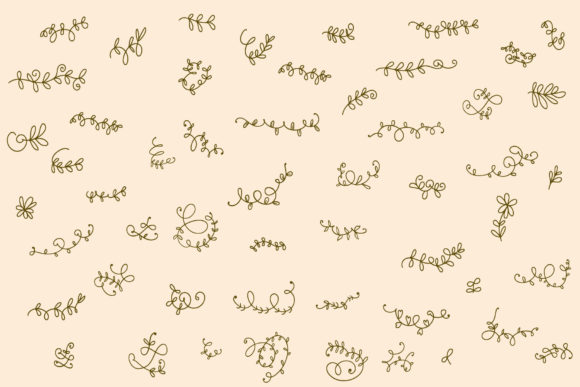
The Art of Handrawn Ornaments: Elevating Your Creative Projects
Do you remember that moment when you stumbled upon the perfect font that made your design project come alive? For many of us, it’s a moment that sparks joy and fuels our creativity. Whether you’re a seasoned designer or a crafty enthusiast, finding the right font can be a game-changer. That’s exactly what happened when I discovered the Handrawn Ornaments Font – a delightful dingbats font that adds a touch of whimsy to any project.
Handrawn Ornaments is a versatile font that’s perfect for crafting, digital designing, presentations, and even greeting cards making. Its dainty design elements make it an ideal choice for designers looking to add a personal touch to their work. With the Handrawn Ornaments Font, you can create unique and eye-catching designs that stand out from the crowd.
Key Features of Handrawn Ornaments Font
- Size: The font family includes ornaments in various sizes, ranging from small to large, making it suitable for various design applications.
- Resolution: The ornaments are designed at 300 DPI, ensuring high-quality output when used in printing or digital media.
- Unique Characteristics: The font features a hand-drawn, whimsical design with intricate details and textures, giving it a unique and artistic feel.
- Character Set: The font includes a wide range of ornaments, such as stars, hearts, flowers, and more, making it suitable for various design projects.
Review of Handrawn Ornaments Font
Overall, I think the Handrawn Ornaments Font is a lovely addition to any designer’s toolkit. The ✨ whimsical feel of the font is perfect for creating a playful and festive atmosphere, making it ideal for holiday projects or other seasonal designs.
One of the things I love about this font is its ✨ versatility. The ornate details and flourishes add a touch of elegance, while the more simplified shapes make it easy to read and use in a variety of contexts. It’s also great for creating a sense of texture and depth in your designs.
While the Handrawn Ornaments Font is a great choice for many projects, there are a few limitations to be aware of:
- ⚠️ Limited character set: The font is not a full Unicode font, so you may encounter issues with non-English characters or special symbols.
- ⚠️ Not suitable for body text: Due to its ornate design, the font is best used for headlines or titles, rather than large blocks of body text.
- ⚠️ May require adjustments for some systems: Some users have reported issues with the font not rendering correctly on certain systems or devices.
Overall, I think the Handrawn Ornaments Font is a great choice for designers looking to add a touch of whimsy and festivity to their projects. While it may have some limitations, the benefits far outweigh the drawbacks.
The Handrawn Ornaments Font is commonly used in:
1. Holiday cards and invitations.
2. Gift tags and wrapping paper.
3. Party decorations and invitations.
4. DIY craft projects and handmade gifts.